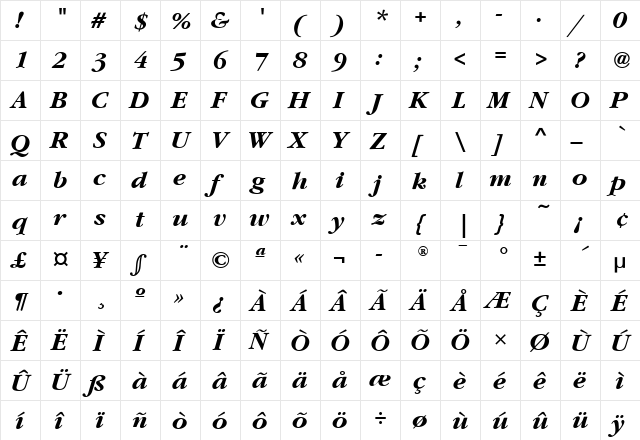
GaramondLitITC Bold Italic
Design Context for GaramondLitITC Typeface
GaramondLitITC takes a measured approach to typography — its balanced proportions and neutral character make it a reliable workhorse for both digital and print work. The dynamic lean of this cut emphasises speed and emphasis in any layout. Its bold stroke weight gives it real presence on the page.
Pro Tip: Use GaramondLitITC for emphasis, pull quotes, and subheadings where its slanted energy can add rhythm to the layout.